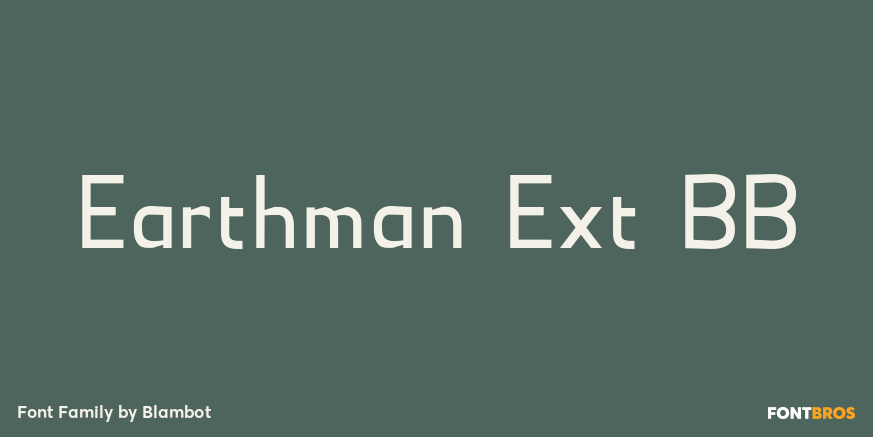
Earthman Ext BB
About Earthman Ext BB
Clear. Concise. Condensed. Earthman BB has a touch of classic science fiction of yesteryear and is perfect for header copy in both upper and lowercase. Comes with 4 styles and has plenty of European characters. Now also available in extended and heavy…